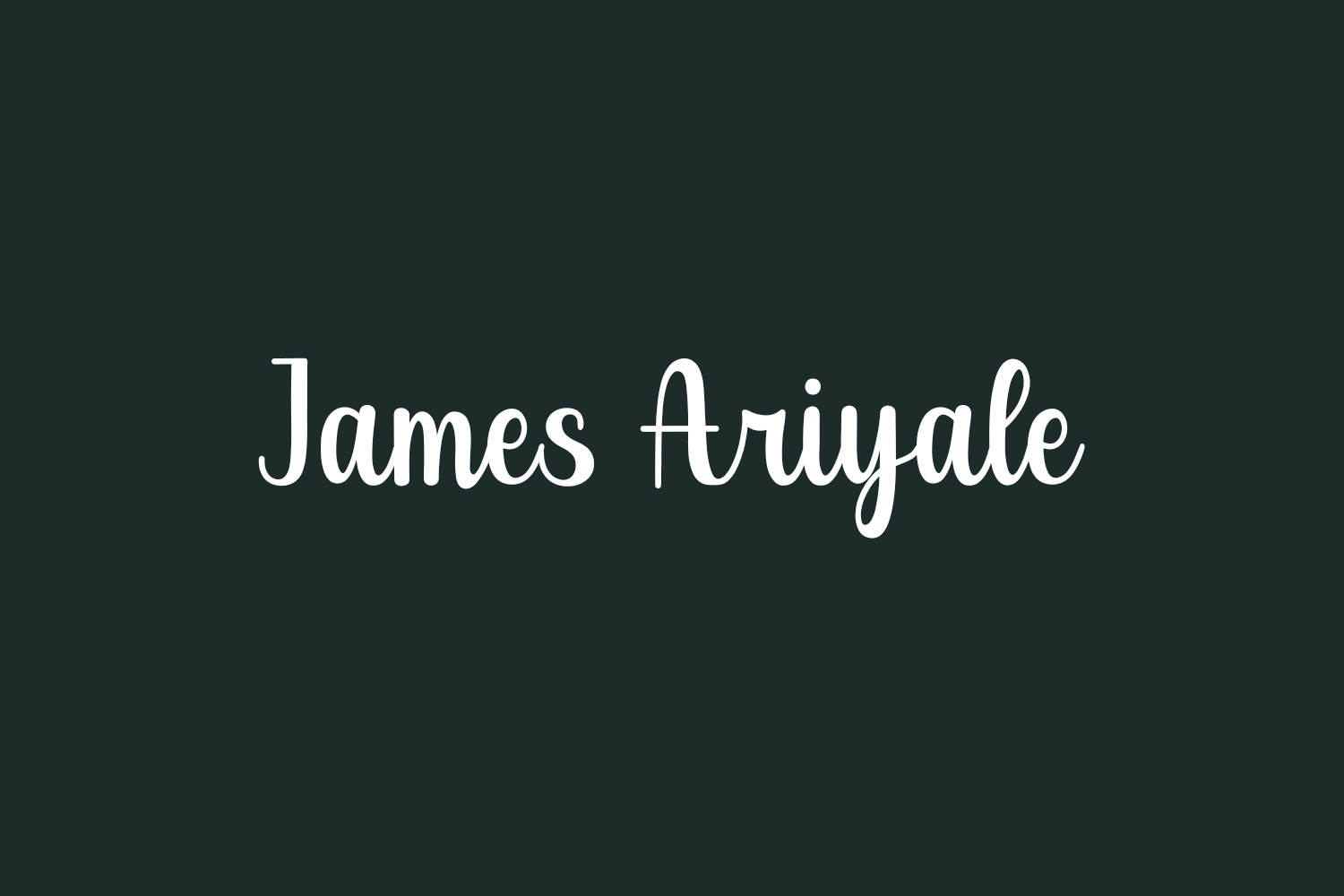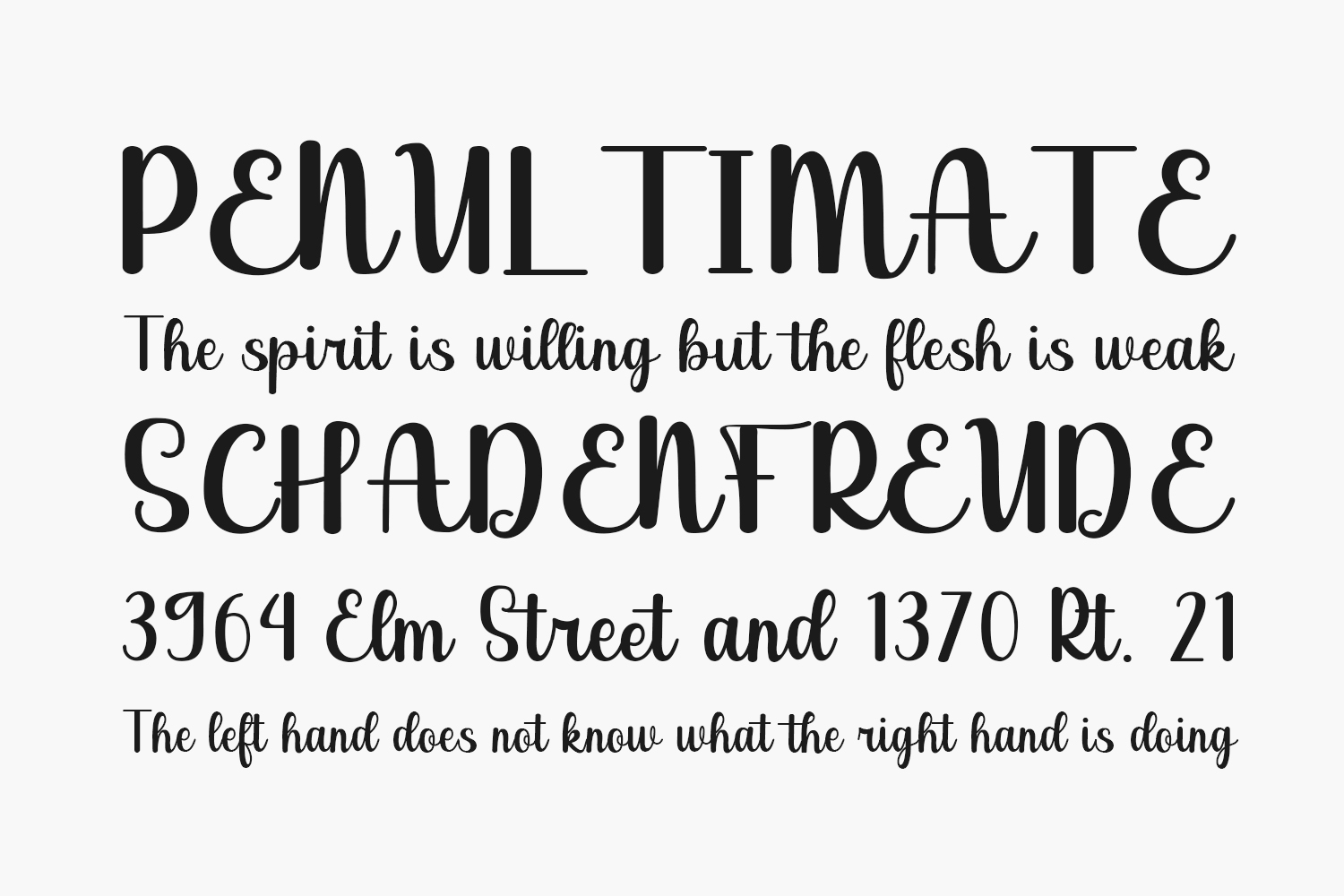
James Ariyale Free Font is a delicate, elegant, and flowing handwritten font. It has beautiful and well-balanced characters and as a result, it matches a wide pool of designs. Add it to your most creative ideas and notice how it makes them come alive. James Ariyale Free Font was designed by StringLabs and is free for personal use only. Please purchase the full version for commercial use.